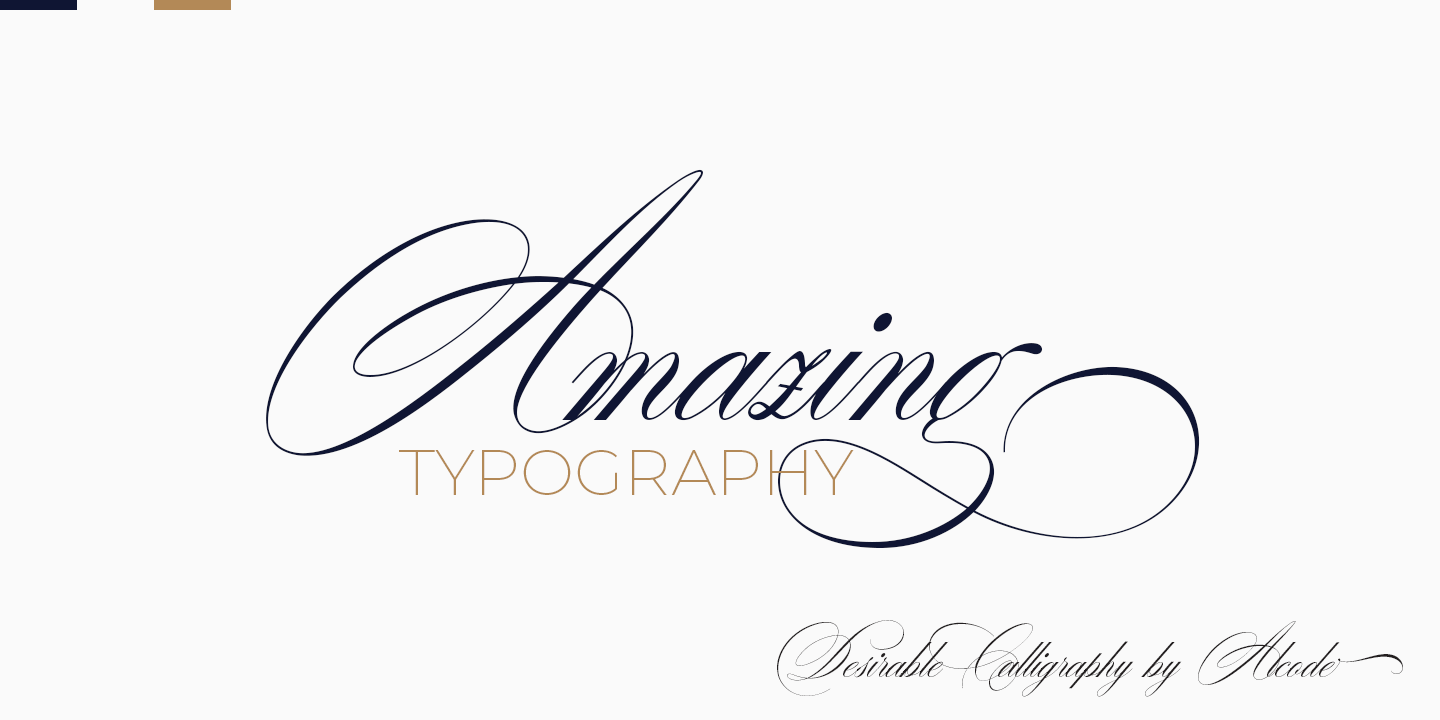
Desirable Calligraphy Font is an exquisite script typeface that embodies handwritten elegance and sophisticated artistry for luxurious design applications. This font is available for commercial use and must be purchased for business applications. You can download it for free for testing purposes only.
Desirable Calligraphy Font excels in numerous design applications including wedding invitations, luxury branding, premium packaging, elegant stationery, high-end fashion labels, exclusive event announcements, boutique marketing, artistic portfolios, sophisticated social media graphics, and upscale hospitality communications. Its artistic character makes it perfect for brands seeking to convey refinement and handcrafted quality.
What makes Desirable Calligraphy Font so exciting is its authentic hand-lettered beauty and flowing elegance, featuring graceful strokes, natural variations, and artistic flourishes that create emotional connection while maintaining excellent readability. The font's calligraphic aesthetic conveys craftsmanship and luxury, making it ideal for premium brands seeking to establish artistic authenticity and sophisticated appeal.
The Desirable Calligraphy Font family includes multiple stylistic variations: Regular, Bold, Light, Ornate, and Swash versions, plus decorative flourishes and alternative character sets. Each family member maintains consistent calligraphic harmony while offering different levels of ornamentation, providing designers with comprehensive options for creating sophisticated handwritten typographic compositions.
This exceptional typeface represents the perfect fusion of traditional calligraphy artistry and contemporary luxury design, making Desirable Calligraphy Font Free Download an essential tool for luxury designers. The font's handwritten characteristics work exceptionally well in premium markets where artistic authenticity, craftsmanship, and emotional appeal are paramount considerations.
Desirable Calligraphy Font supports extensive character sets including international languages, comprehensive punctuation, and decorative elements, ensuring creative flexibility for global luxury brands. Its flowing construction and artistic spacing maintain readability while preserving the distinctive handcrafted character that defines its elegant appeal.
Professional designers choose Desirable Calligraphy Font for its ability to create memorable luxury brand identities and sophisticated communications. The font's calligraphic nature makes it particularly effective for wedding services, luxury goods, artisan brands, and high-end lifestyle companies where artistic quality and handcrafted appeal are essential.
The font's artistic sophistication and handwritten versatility make it particularly suitable for luxury wedding planners, artisan chocolatiers, high-end fashion boutiques, premium wine labels, and exclusive event venues. Its timeless elegance ensures designs remain sophisticated and memorable across changing luxury design trends.